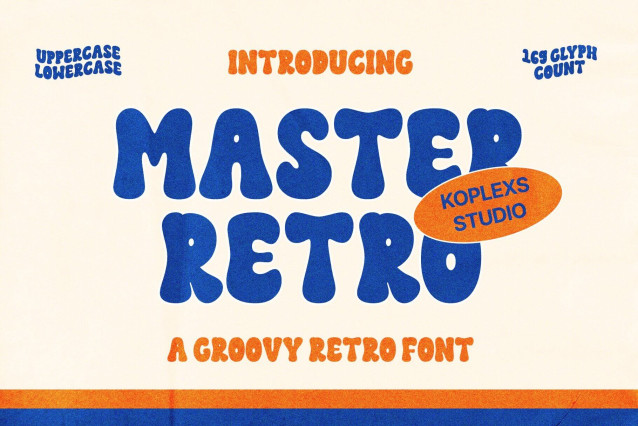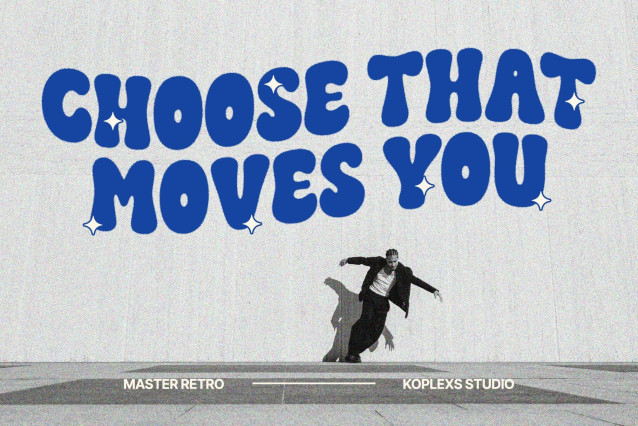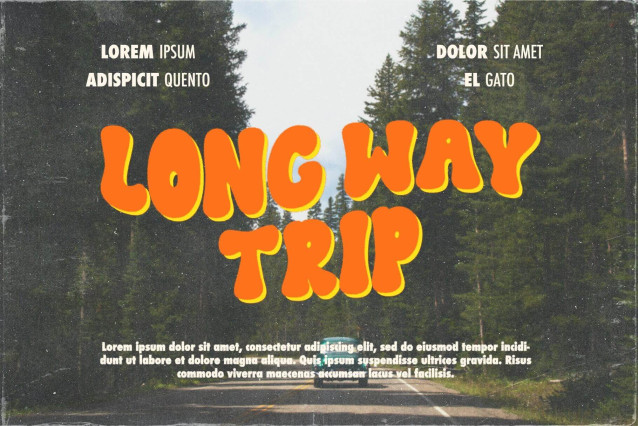
Master Retro Font
Master Retro Font is a bold groovy retro font inspired by playful bubble fonts and vintage typography from the 70s and 80s. Its chunky and wavy letterforms bring a nostalgic yet modern look, perfect for designers who love retro style fonts, fancy text, and aesthetic fonts. Ideal for branding, logos, posters, cosmetic packaging, and social media, this fancy font style combines creativity with elegance to make every design stand out.
Crafted as a versatile branding font, Master Retro Font delivers smooth curves and joyful energy, great for retro wavy fonts, vintage goods fonts, and modern retro fonts. Whether you’re designing a luxury logo, cool text fonts for merchandise, or retro groovy posters, this creative vintage font adds warmth and character to every project. Bring back the charm of nostalgic fonts with the stylish and timeless Master Retro Font today!